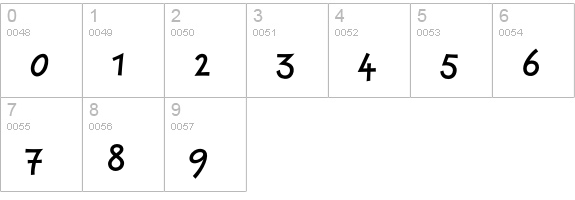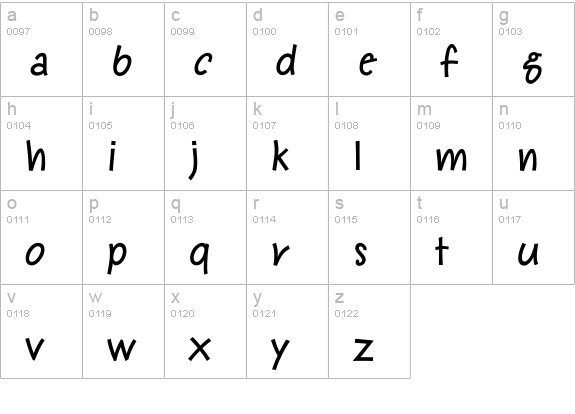
Saturday-SemiBold is a sub-bold, structured variant in the Saturday typeface family \xE2\x80\x94 well suited to sub-headlines and emphasised passages.
Saturday-SemiBold is a captivating font that effortlessly combines modernity with a touch of elegance. With its bold and confident appearance, this font is sure to make a statement in any design project. Whether used for headlines, logos, or even body text, Saturday-SemiBold commands attention and adds a sense of sophistication. What makes Saturday-SemiBold even more appealing is that it is freely available to download at FontsMarket.com. This means that designers and typographers can effortlessly access this stunning font without any cost. The versatility of Saturday-SemiBold allows it to be used in a wide range of design projects, from print materials to digital content. The clean and crisp lines of Saturday-SemiBold make it incredibly legible, ensuring that your message will be effectively conveyed to your audience. The careful balance between the boldness of the font and its refined details gives it a unique and memorable character. In addition to its visual appeal, Saturday-SemiBold also boasts excellent readability across various platforms and devices. Whether it is displayed on a computer screen, a mobile device, or in print, this font retains its clarity and impact. The versatility, elegance, and legibility of Saturday-SemiBold make it a must-have font for designers and typographers alike. Its freely available download at FontsMarket.com makes it easily accessible to anyone who wants to add a touch of sophistication to their projects. So why wait? Enhance your designs with Saturday-SemiBold and watch them come to life with style and grace.